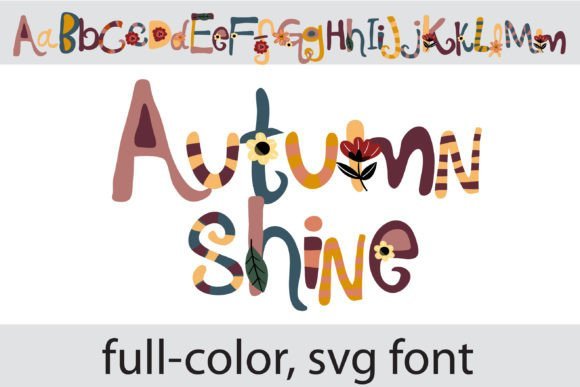
Unlocking the Magic of Autumn
As the leaves begin to change and the air grows crisp, I find myself inspired to create something truly special – a design that captures the essence of the season. For me, it’s the perfect time to break out my favorite fonts and experiment with new colors and styles. That’s exactly what the Autumn Shine Font is designed to do – add a touch of warmth and personality to your designs.
With its playful lettering and vibrant autumn color palette, the Autumn Shine Font is the perfect addition to any designer’s toolkit. Whether you’re working on a wedding invitation, a holiday card, or a seasonal logo, this font is sure to bring a smile to your face and a pop of color to your design. And with its OpenType full-color (SVG) capabilities, you can take your designs to the next level.
Autumn Shine Font Key Features
- Font Style: Script, Casual
- Unique Characteristics: Hand-drawn, elegant, and whimsical design with a warm, autumnal tone
Designer Review: Autumn Shine Font
Overall, I was impressed with the Autumn Shine Font. Here are some of its standout features:
- ✨ Beautiful, hand-crafted characters with a unique, natural feel.
- ✨ A wide range of styles, from bold and playful to elegant and sophisticated.
- ✨ Great for designs that require a warm, inviting tone.
- ⚠️ Limited font sizes and weights, which may make it difficult to use in complex designs.
- ⚠️ Some characters may not render properly at very small font sizes.
- ⚠️ Not as versatile as some other fonts, which may limit its use in certain design contexts.
Overall, I think the Autumn Shine Font is a great choice for designs that require a natural, earthy feel. While it may have some limitations, its unique character and wide range of styles make it a valuable addition to any designer’s toolkit.
To get the most out of Autumn Shine Font, use it in combination with warm color schemes and earthy textures to create a cozy and inviting atmosphere. Experiment with different font sizes and styles to create visual interest and hierarchy in your design.
Autumn Shine Font is perfect for creating designs for fall-themed events, such as Halloween or Thanksgiving. It’s also great for designing marketing materials, such as brochures or flyers, for outdoor or nature-based businesses.